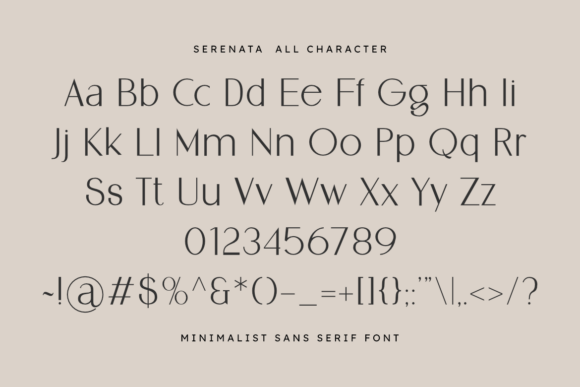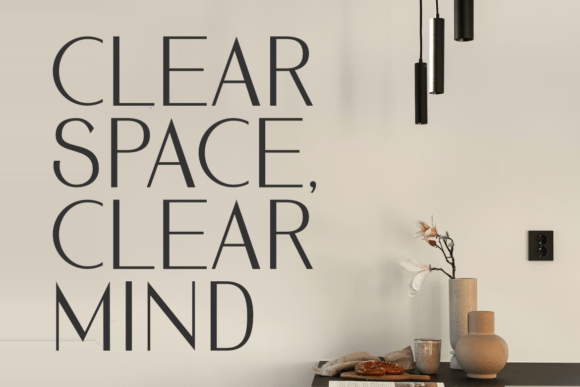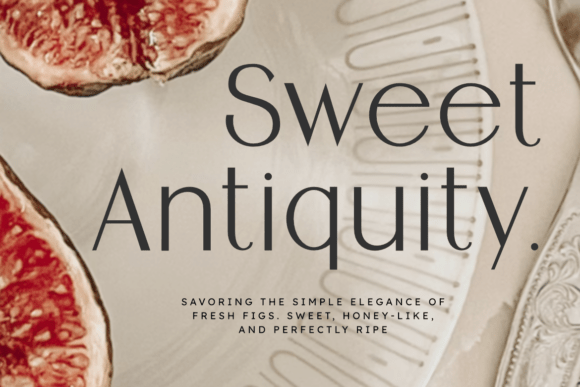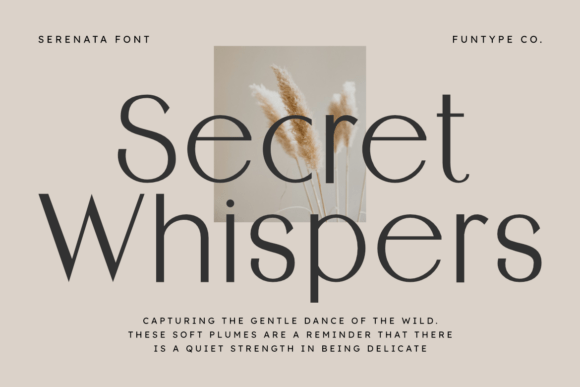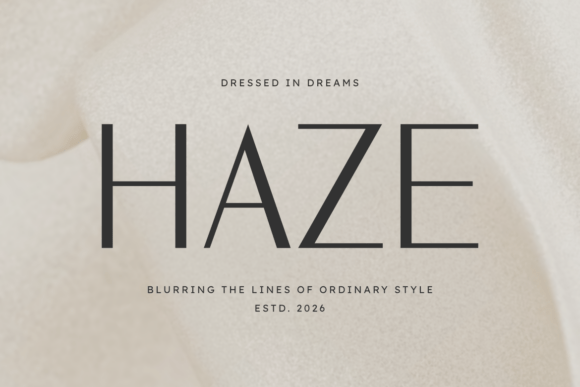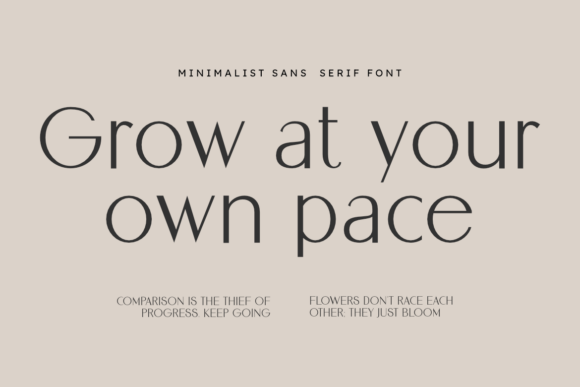
Introduction to Serenata Font Font
Fonts play a crucial role in design, and the Serenata Font font is a typeface that brings both character and versatility to any project. Whether you’re working on a branding project, a website, or a print design, the Serenata Font font offers a unique style that can elevate your work.
Serenata is a beautifully crafted sans serif font that defines modern minimalism.
With its clean lines, thin stroke weight, and balanced geometric shapes, Serenata offers a sophisticated aesthetic that is both timeless and contemporary This font is designed for creators who believe that βless is more.
Key Features of Serenata Font Font
Why Choose Serenata Font Font?
The Serenata Font font is more than just a typeface β it’s a design tool that helps you communicate your message with style and clarity. Its unique character set and versatile design make it suitable for a wide range of applications, from elegant invitations to bold headlines.
With its carefully crafted letterforms and balanced proportions, the Serenata Font font ensures readability and visual appeal across all mediums.
What makes Serenata Font font special?
The Serenata Font font stands out with its unique design, exceptional readability, and versatility across various design applications.